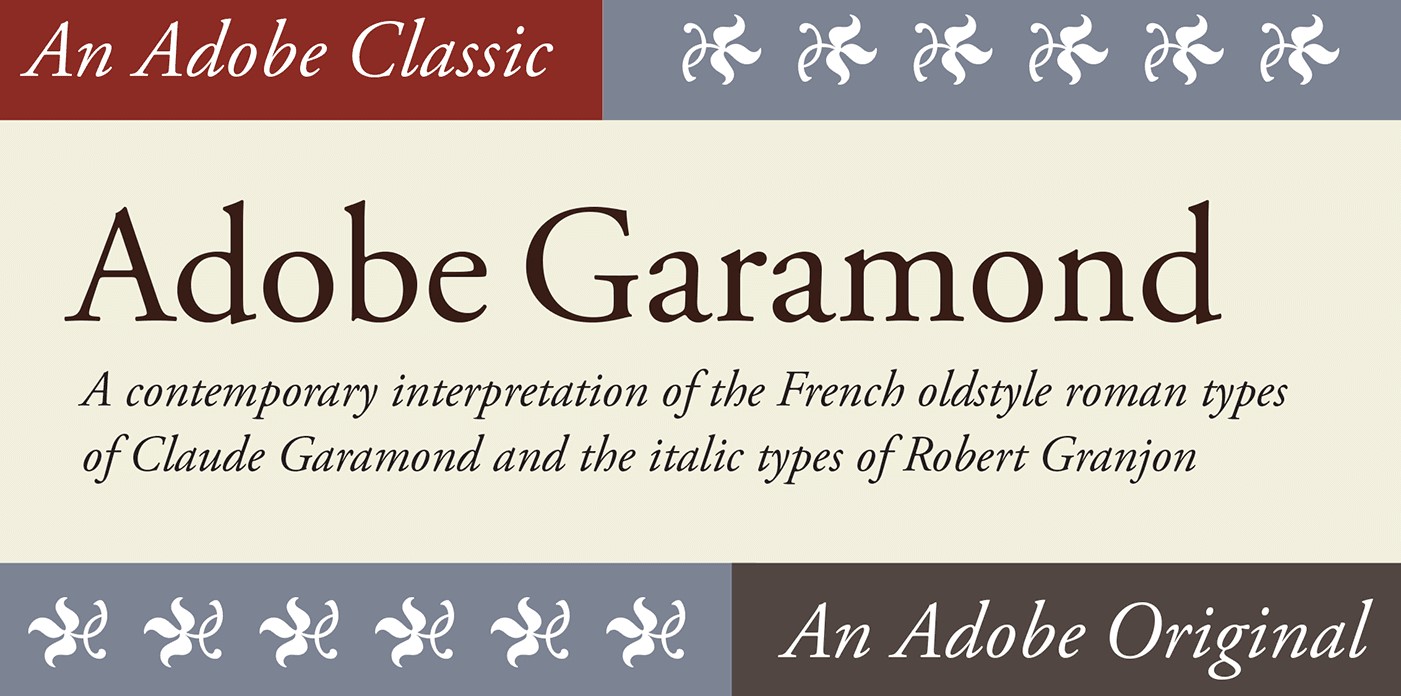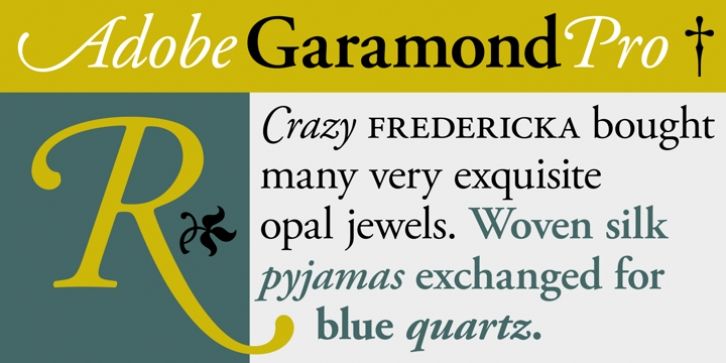
Adobe Garamond Font
Adobe Garamond Font as it is clear from its name that it is the main font of Adobe. This typeface is also famous for its bold and italic function and it’s also present interior google fonts. Its appearances are immoderate in big sizes inside the hobby of small. However, the topography each better and reduce case letterings, numbers, and glyphs.